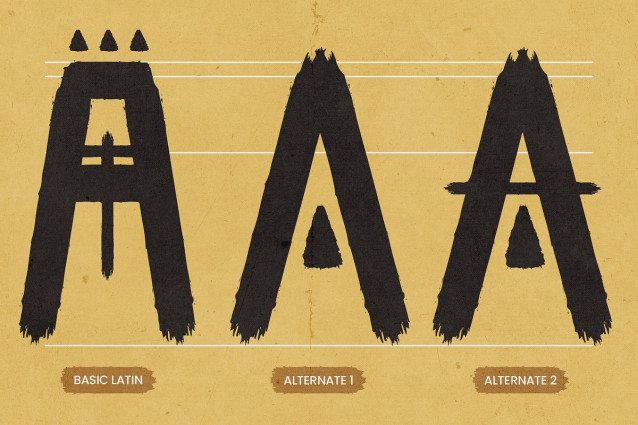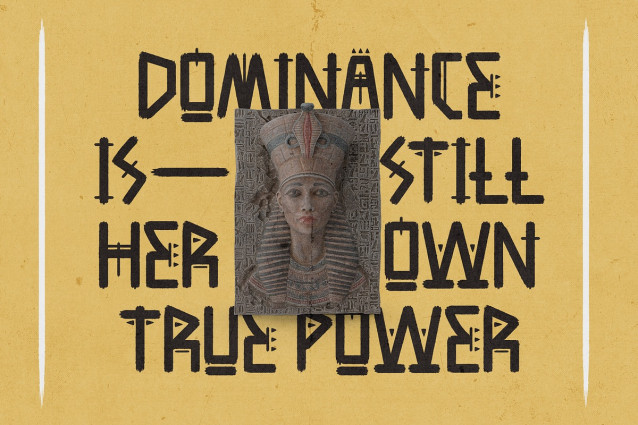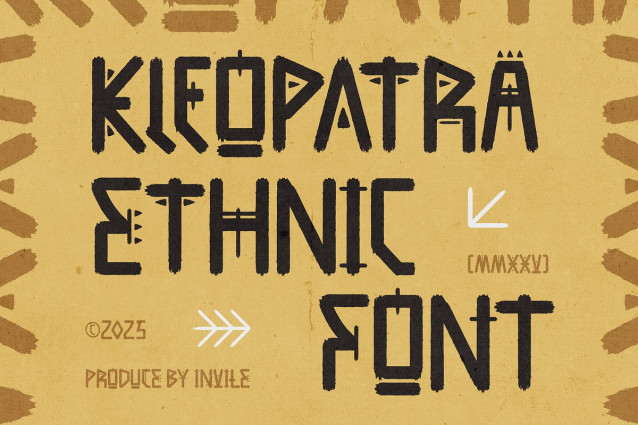
Kleopatra Display Font
Kleopatra Display Font is a bold ethnic display font inspired by ancient tribal patterns and handcrafted aesthetics. With its strong, exotic character, this font brings a distinct cultural flair to any creative project.